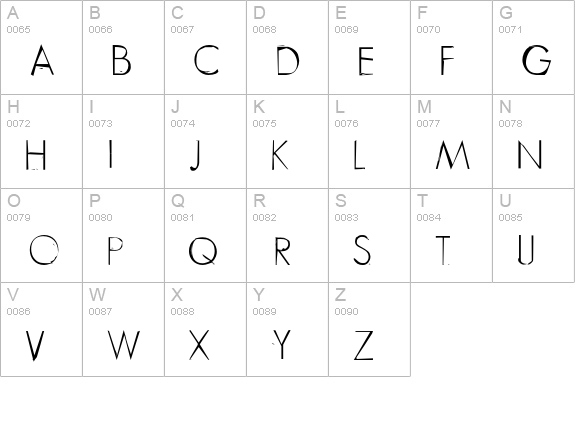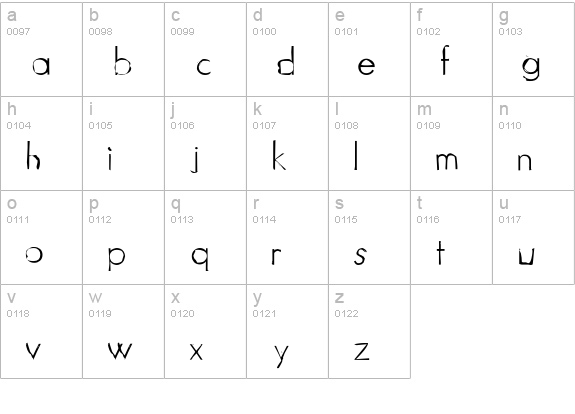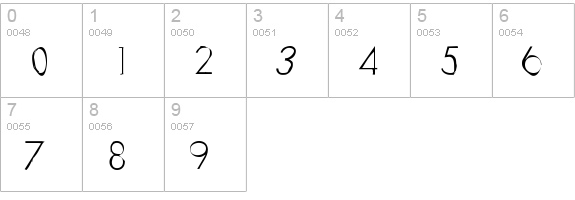
Garbage-Normal is the standard, neutral variant in the Garbage typeface family \xE2\x80\x94 well suited to general body text, paragraphs, and standard typographic work.
The Garbage-Normal font is a unique and quirky typeface that exudes a sense of playful creativity. With its irregular and slightly messy appearance, this font is perfect for adding a touch of whimsy to your designs. Whether you're working on a project that requires a fun and unconventional look or simply want to make a statement with your typography, Garbage-Normal is sure to grab attention. Best of all, this font is completely free to download at FontsMarket.com. So why wait? Add a touch of character to your designs with Garbage-Normal today!